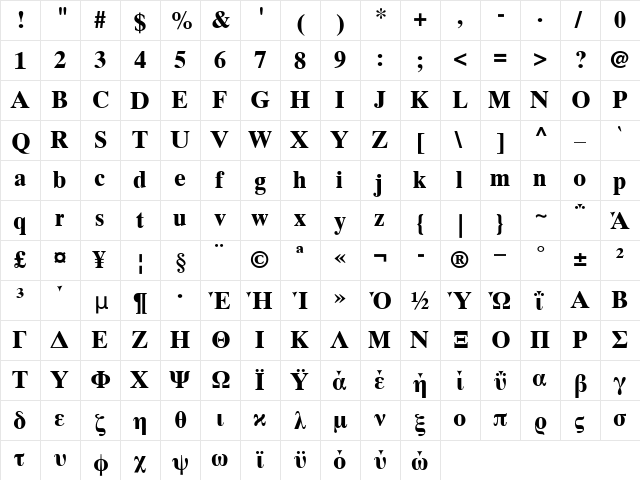
TimesTenGreek Upright Bold Font Preview
TimesTenGreek Upright Bold
Design Context for TimesTenGreek Upright Typeface
TimesTenGreek Upright is a composed and adaptable typeface that performs quietly and consistently across a wide range of design contexts. Its bold stroke weight gives it real presence on the page.
Pro Tip: Use TimesTenGreek Upright in both headline and body roles to test its range before committing to a single application.